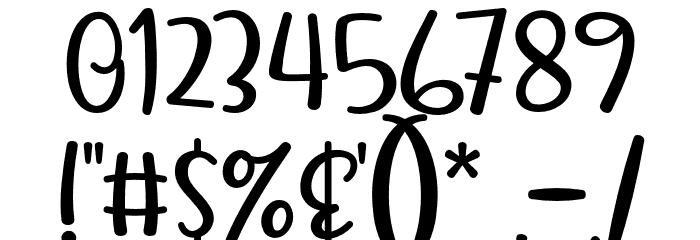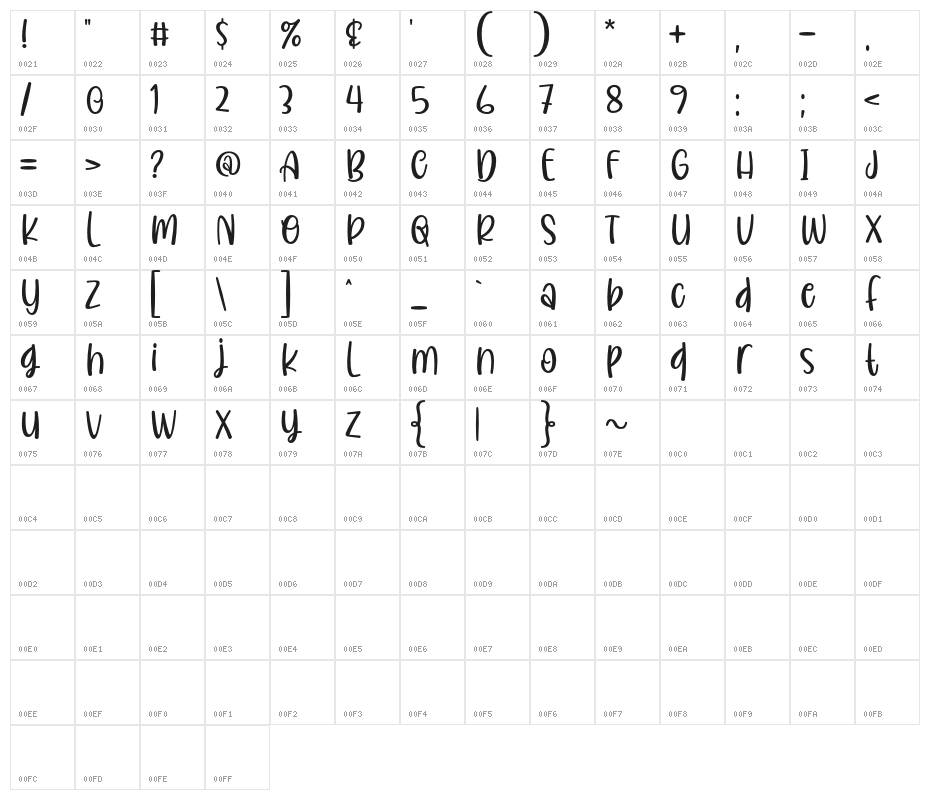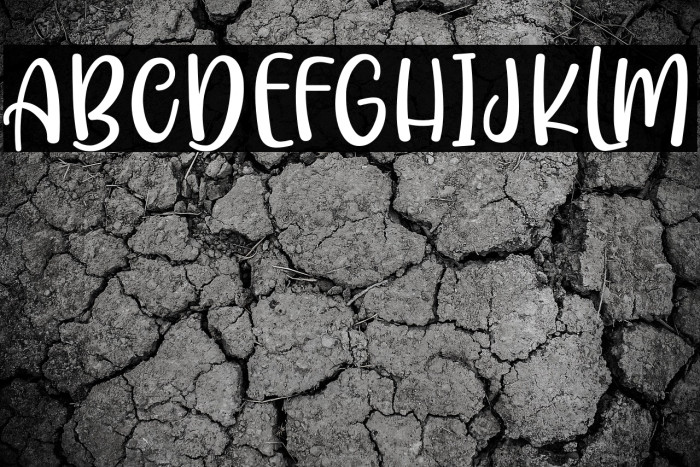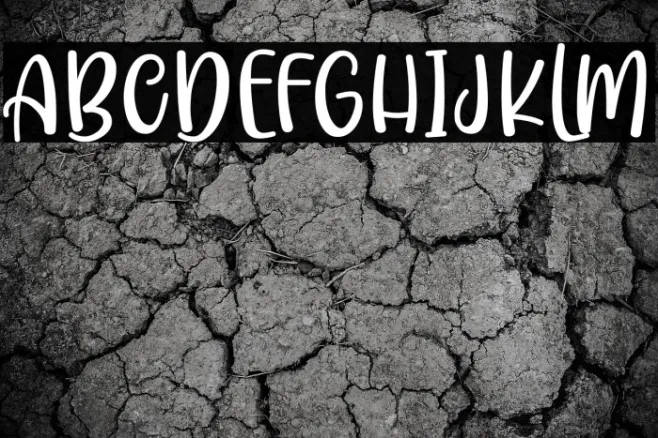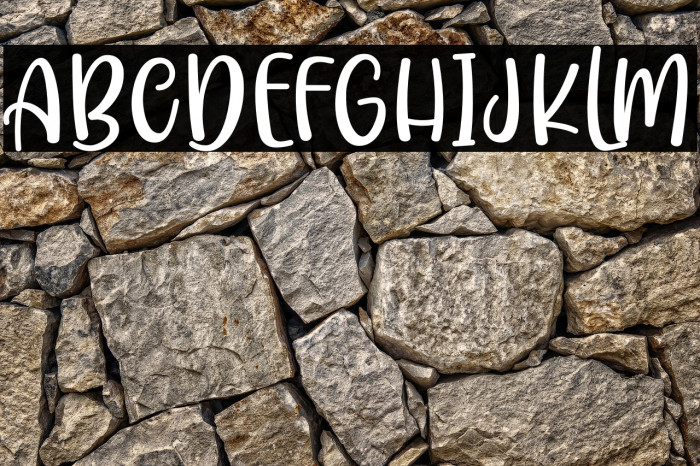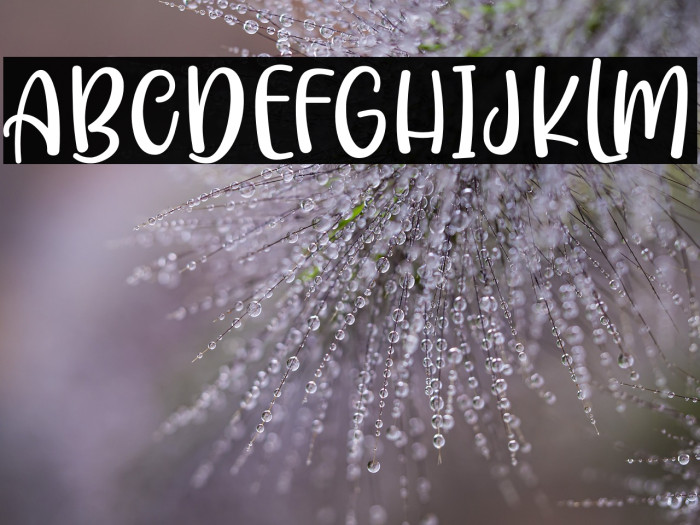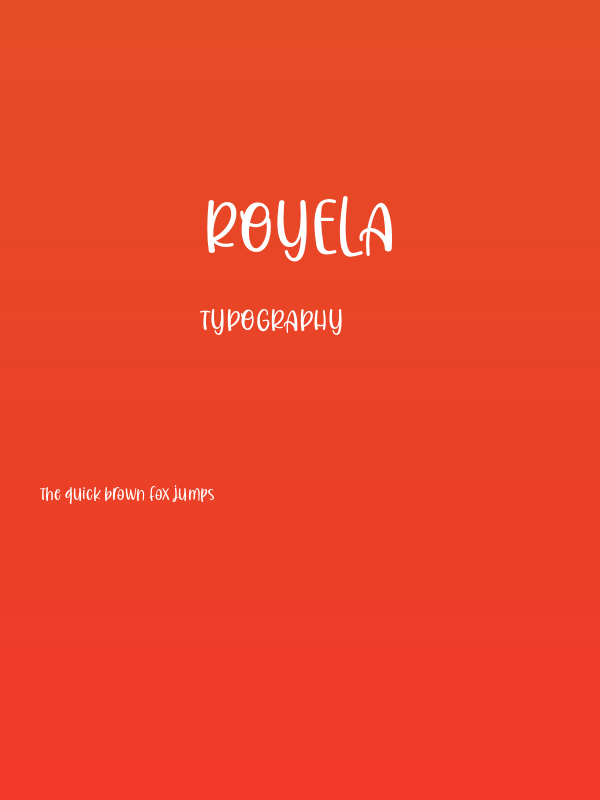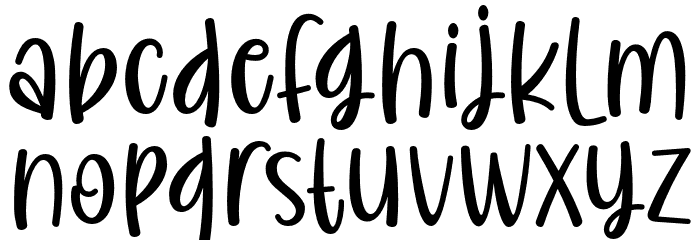
Royela Font
Royela Description
This font features a playful and casual handwritten style with a smooth and flowing appearance. The letters are slightly slanted, giving it a dynamic and lively feel. Each character is distinct with rounded edges and a consistent stroke width, which adds to its approachable and friendly look. The uppercase and lowercase letters maintain a cohesive style, while the numerals and special characters complement the overall design. This font is versatile, suitable for projects that require a personal touch or a relaxed vibe.
| Use Case | Logos, Headlines, Social Media |
| Proposed Projects | Ideal for greeting cards, invitations, personal branding, and social media graphics. |